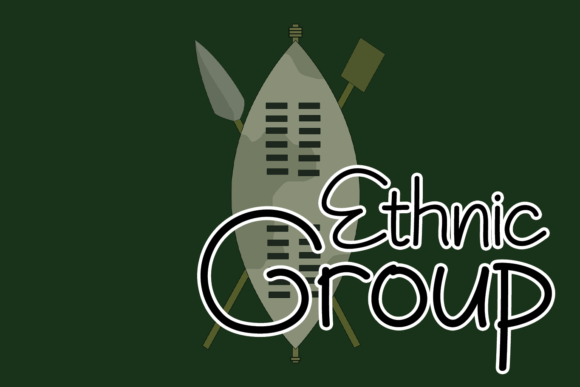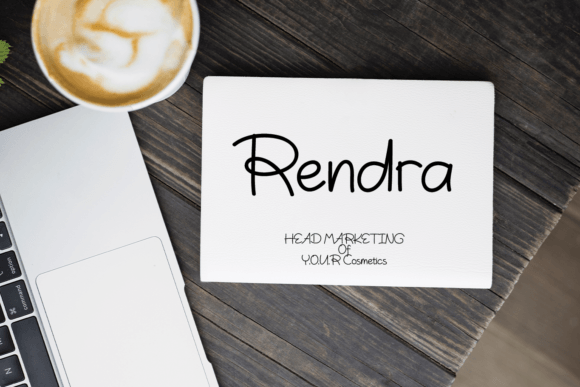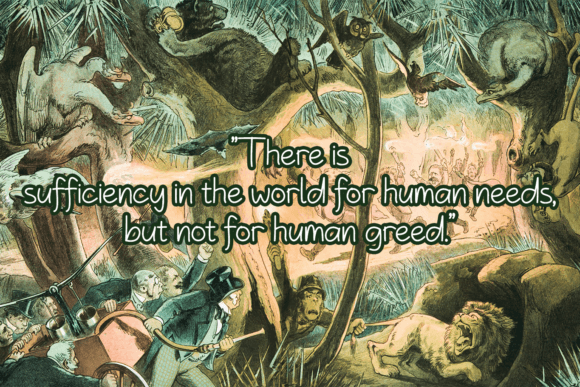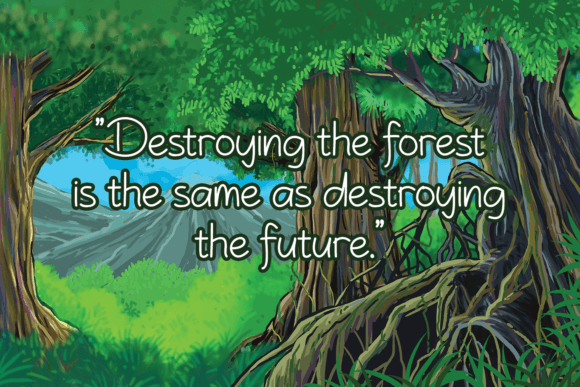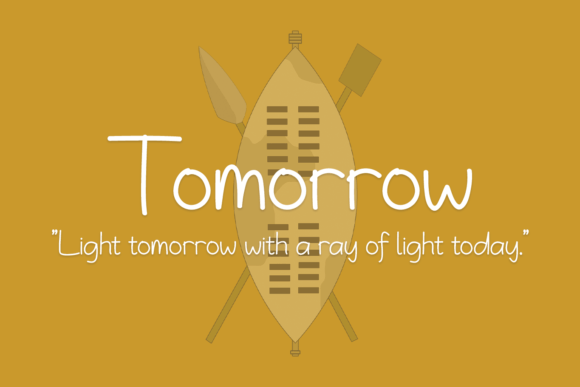
About Jungle Font
“Jungle” is a beautifully crafted thin-lettered handwritten font that is sure to become a cherished favorite. With its contemporary and fresh appeal, it is an ideal choice for a wide range of design projects. Adding “Jungle” to your creative endeavors can elevate them and help you achieve outstanding results.
The distinctive qualities of “Jungle” lie in its delicate, thin lettering and contemporary style. This font strikes a balance between elegance and modernity, making it suitable for a variety of design contexts. Whether you’re working on branding, typography design, or other creative projects, “Jungle” can bring a unique and refreshing touch.
Visualize incorporating “Jungle” into your design work, such as crafting an elegant logo for a modern brand or creating eye-catching typographic posters. Imagine how this font can infuse a sense of contemporary sophistication into your projects, making them stand out and leaving a lasting impression.
In conclusion, “Jungle” is not just a font; it’s a design tool that can help you achieve outstanding results in your creative endeavors. Its thin-lettered, handwritten style, combined with a contemporary feel, makes it a versatile choice for various applications. Embrace “Jungle” as a font that adds a touch of modern elegance to your work, allowing you to create designs that are truly outstanding.